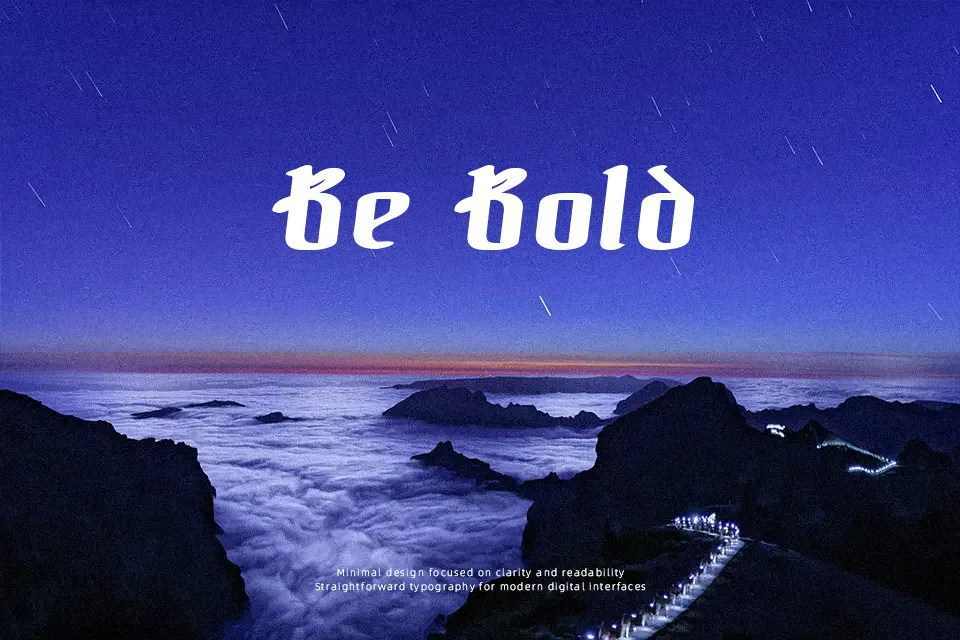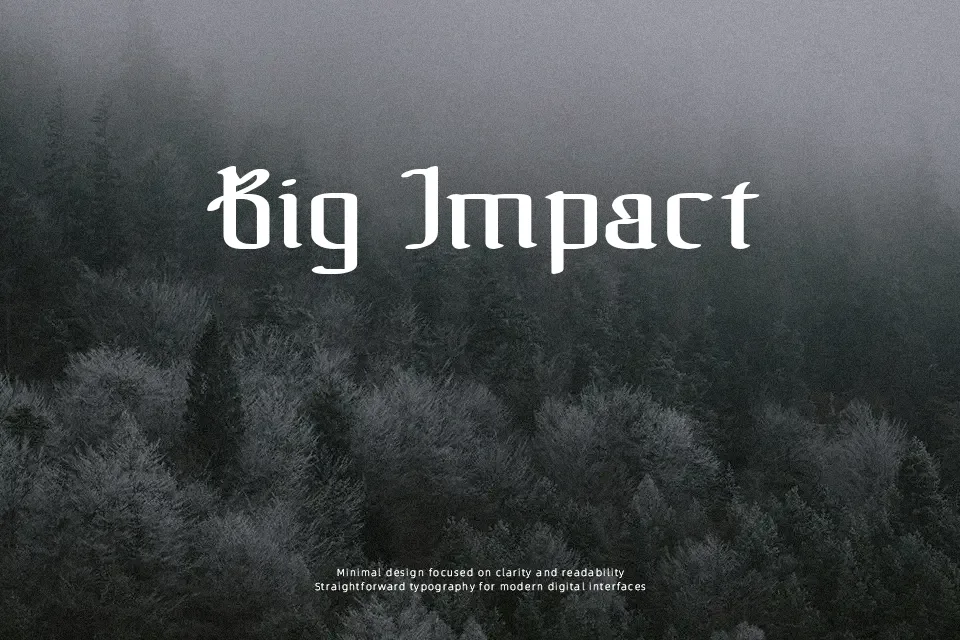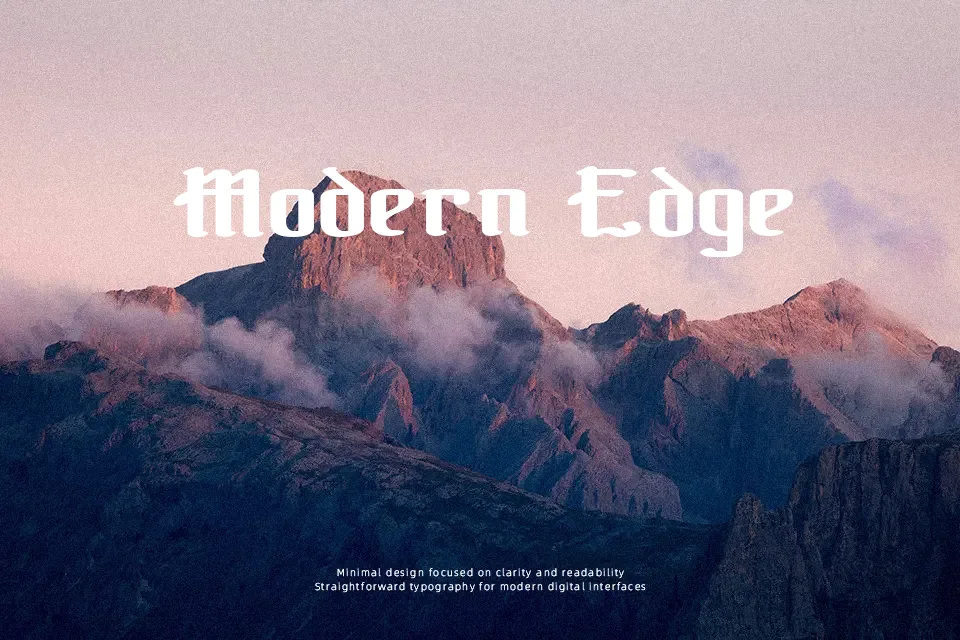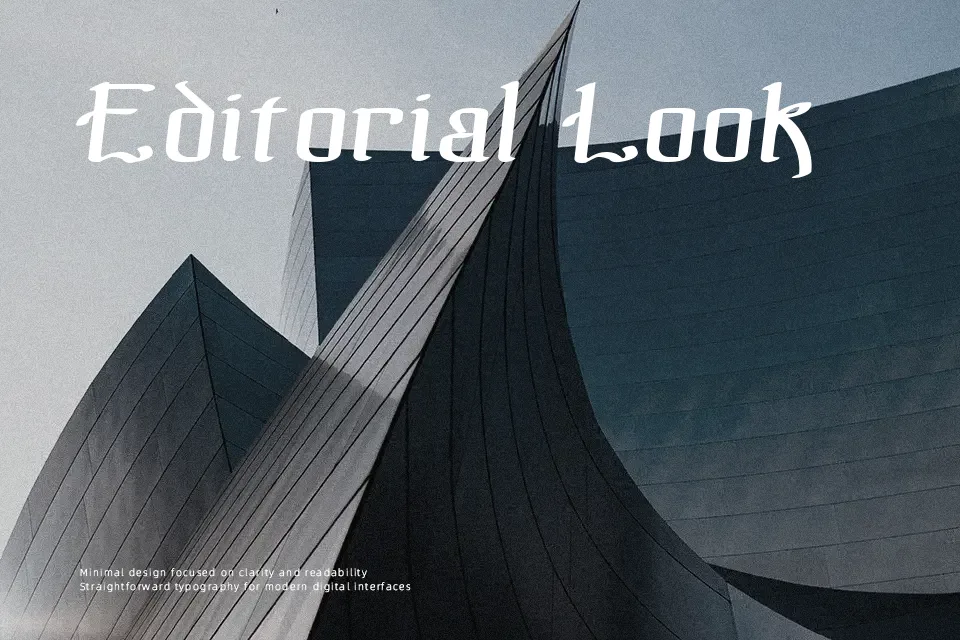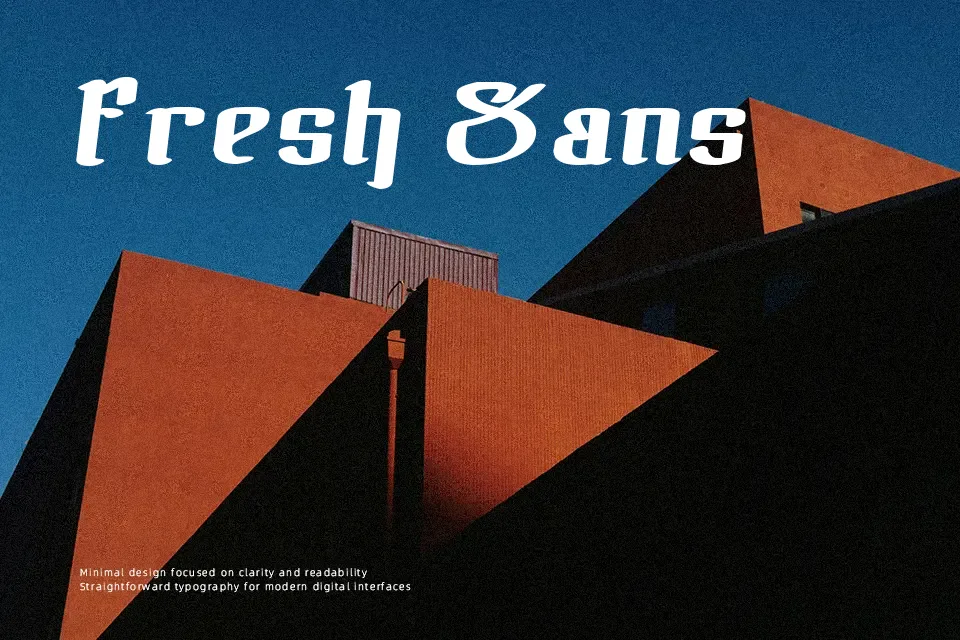
The Black Bloc Font
Built with stark, angular strokes and dramatic blackletter construction, The Black Bloc Font delivers immediate visual tension through its dense letterforms. Heavyweight vertical stems paired with razor-sharp diagonal cuts create compact character spacing and commanding headline presence across larger formats. Proportions remain tightly packed, maintaining striking silhouette definition in short titles while sacrificing legibility in continuous text passages. Intricate interior counterforms begin to close in at reduced scales, making the design far less practical for running body copy or compact digital interfaces. Overall, the typeface provides robust visual punch for high-impact titling where medieval edge outweighs delicate reading comfort.
– heavy metal band logos
– streetwear apparel prints
– music festival posters
– horror movie title cards
– extended editorial body text
– mobile interface captions
– long paragraph reading
– legal document layouts
Perfect for branding, headline, and logo, with a bold and blackletter style.